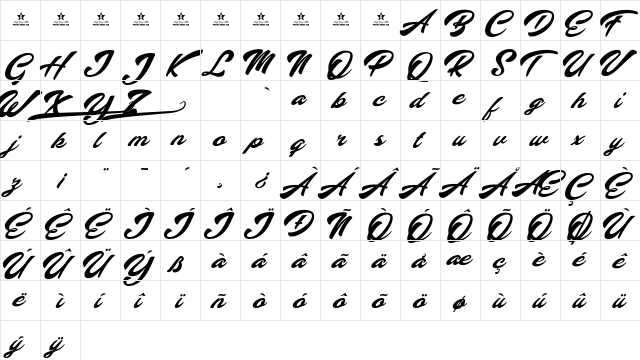
Altavista Regular
| Foundry | Billy Argel |
| Designer | Billy Argel |
Design Context for Altavista Typeface
Altavista is a composed and adaptable typeface that performs quietly and consistently across a wide range of design contexts.